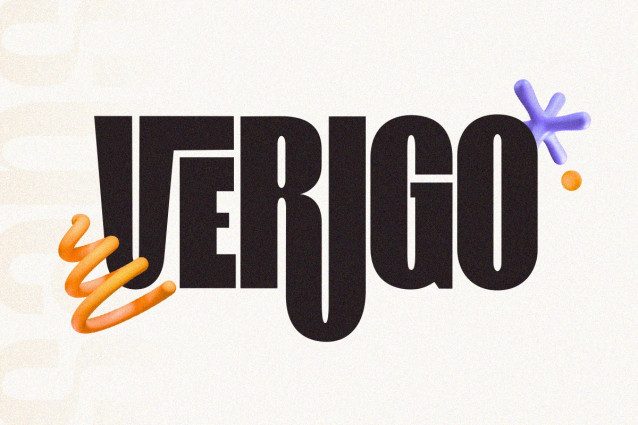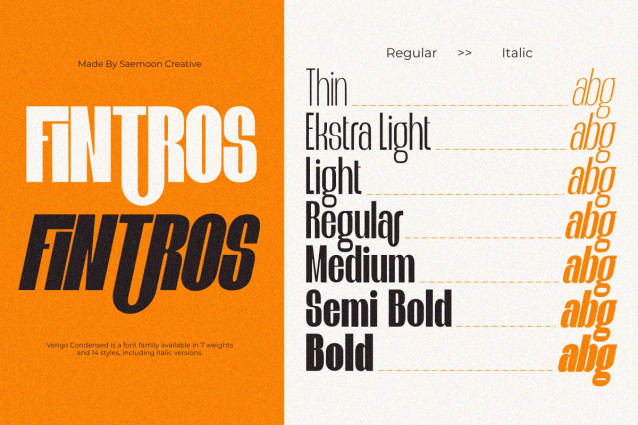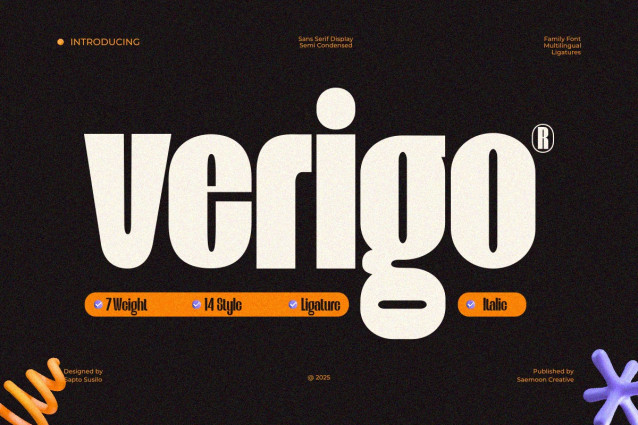
Verigo Font
Verigo Font is a modern and versatile semi-condensed display sans-serif font family designed to elevate your visual storytelling. With 14 styles – from Thin to Bold, each paired with true Italics – Verigo is made for bold branding, cinematic titles, editorial design, and digital interfaces that demand clarity and character.
Crafted with clean geometry and elegant proportions, Verigo offers a sleek, space-efficient look without sacrificing readability. Whether you’re designing a film poster, a tech brand identity, or a bold headline, Verigo brings a perfect balance of strength, style, and sophistication.